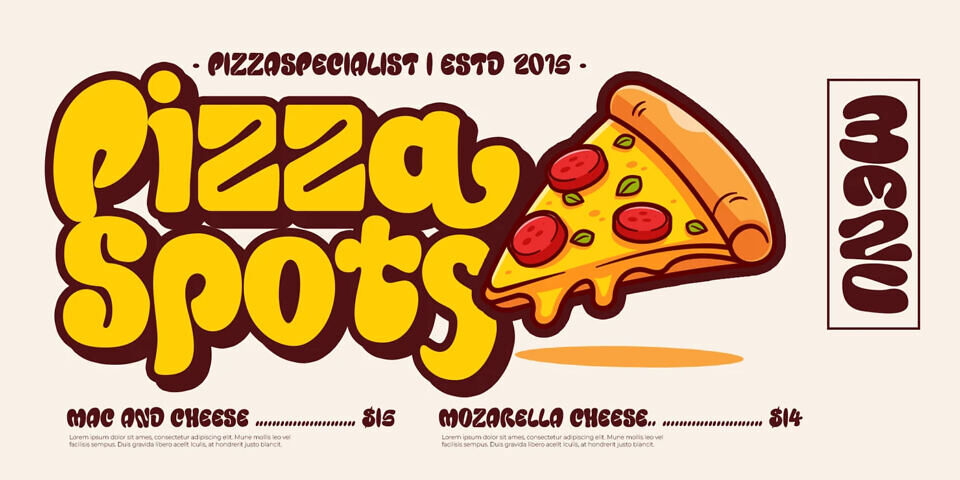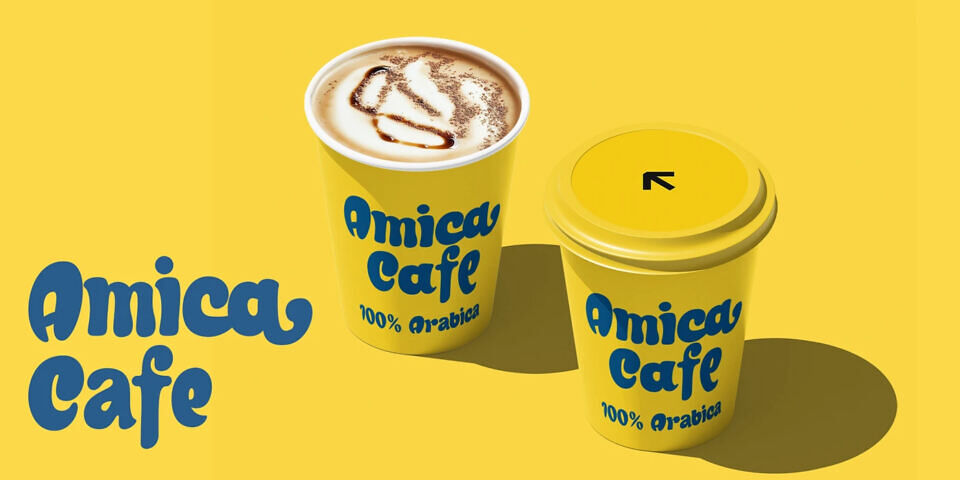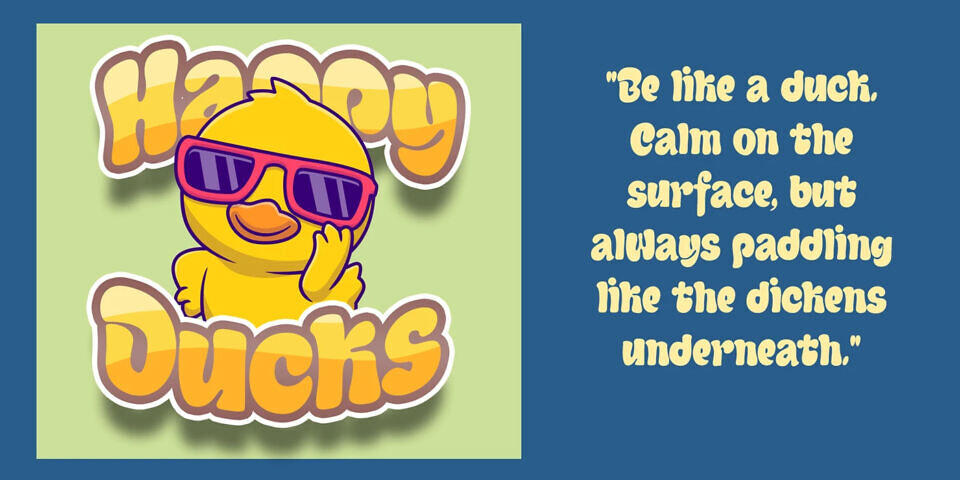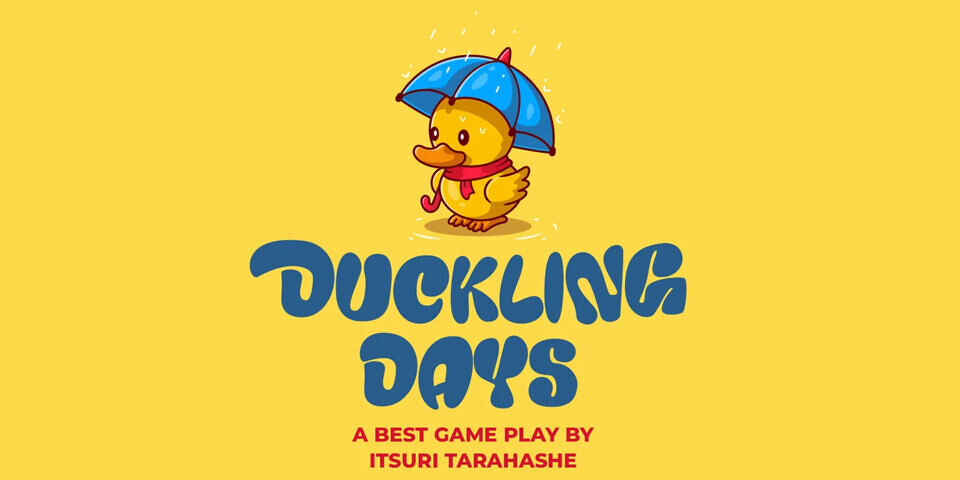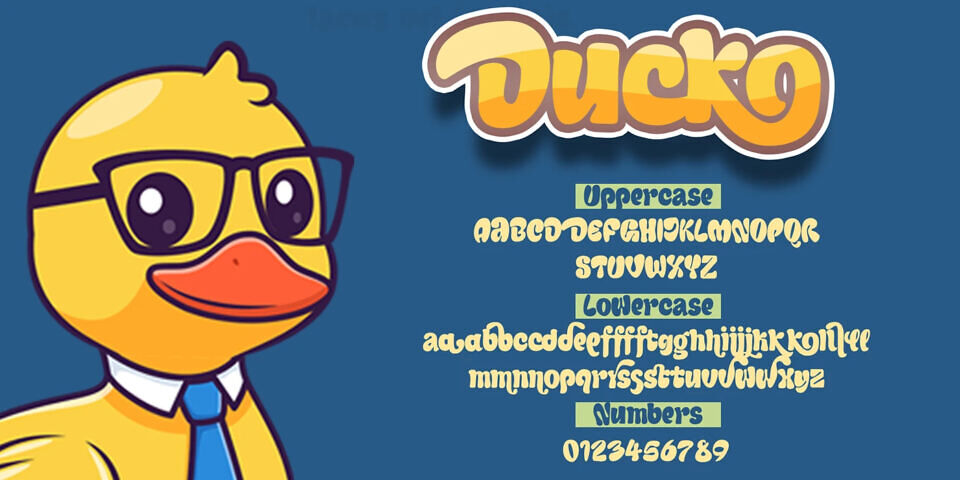
Ducko Font
Ducko Font, crafted by Lettercorner Studio, is a playful typeface that brings a whimsical charm to any design. Featuring bold, rounded letters with a vibrant yellow-orange gradient, it’s paired with a cute duck mascot wearing glasses, adding a fun touch.
Available in uppercase, lowercase, and numbers, Ducko Font is perfect for branding, posters, or children’s projects. Its quirky style ensures your text stands out with a cheerful, approachable vibe.